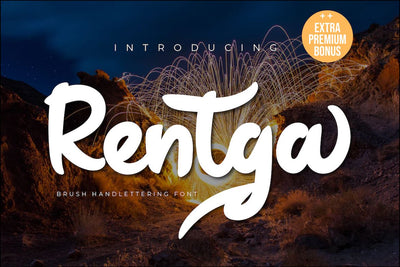
Rentga
Rentga is a modern brush display font, defined by a flowing and contemporary design. Fall in love with its incredibly versatile style and use it to create spectacular designs!
This font will turn any creative idea into a true piece of art, this font is perfect for strong text with displays for a wide variety of branding, advertising, posters, banners, packaging, headlines, outdoor activity, websites, logo design, and more.